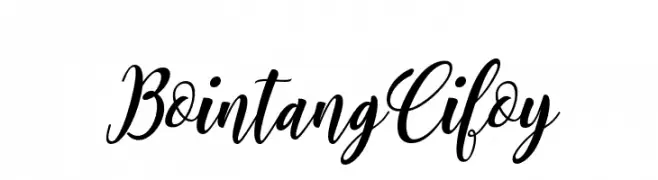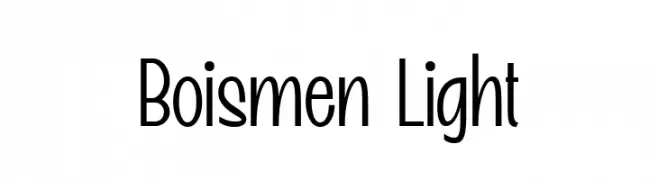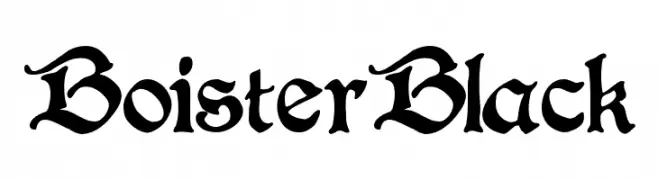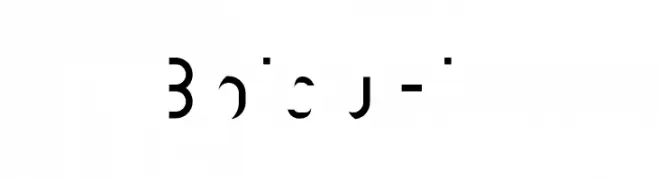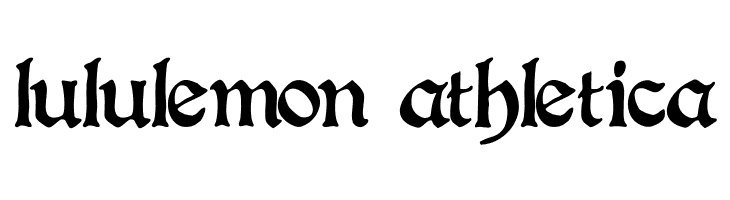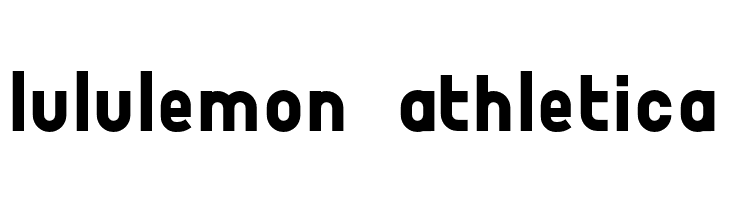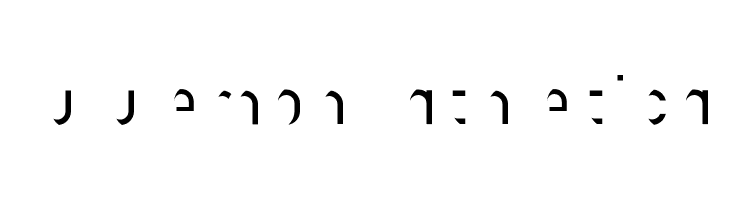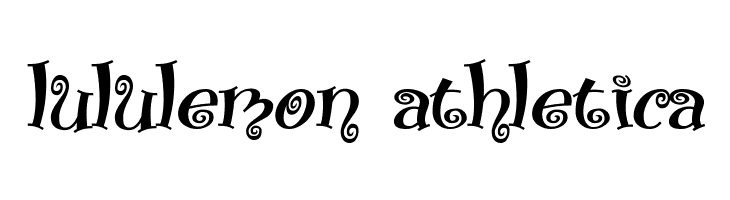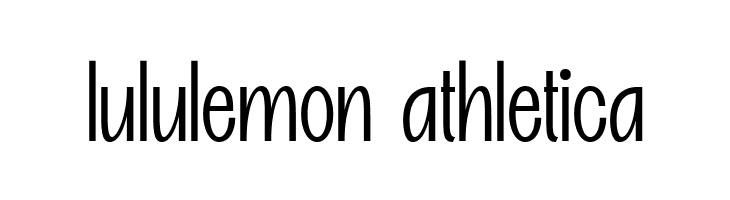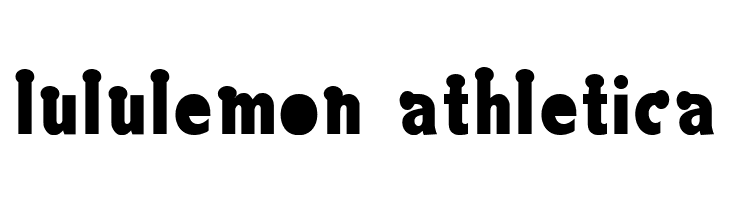
A whimsical, curly font with playful and decorative elements.
A bold, decorative font with angular edges and a stencil-like appearance.
An elegant and flowing script font with ornate uppercase and smooth lowercase letters.
A dynamic and elegant script font with flowing, cursive letterforms.
A modern, light, and condensed sans-serif font with a clean aesthetic.
A bold, ornate blackletter font with intricate details and a gothic style.
A bold, decorative blackletter-inspired font with ornate uppercase letters.
A modern, minimalist font with geometric shapes and a sleek appearance.
A bold, modern font with clean lines and consistent thickness.